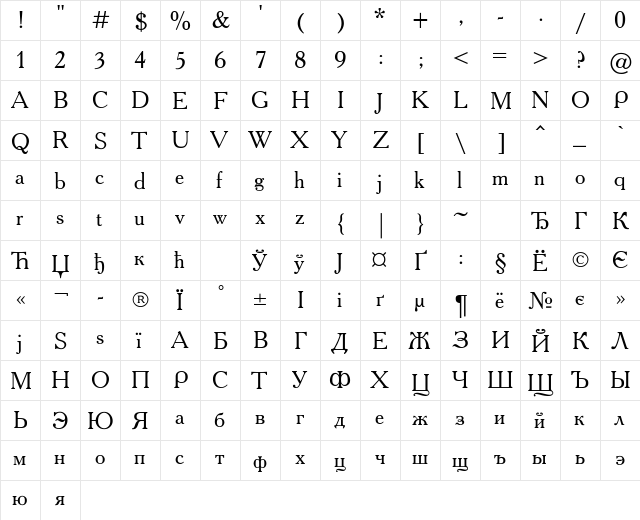
ft43n Regular
Design Context for ft43n Typeface
ft43n takes a measured approach to typography — its balanced proportions and neutral character make it a reliable workhorse for both digital and print work.